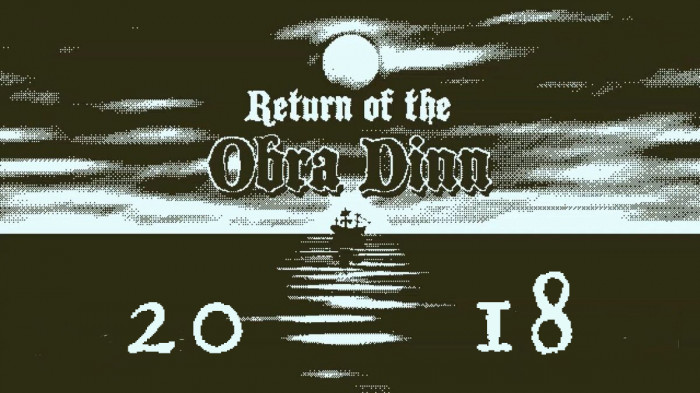
I like the spreading of ink on old printed books, in contrast to the digital sterility of fonts and texts around us today. I wanted to add a little soul, although using a grid and digital pixels to simulate ink. Completely handmade, no real prototype.
Maybe if I were a programmer, I would come up with a special random hint or a variable font in which the outline of each letter would always be unique and imitate the printing of an old book.
@Dmitriy Sychiov (Sychoff) - I really like the old, worn style as well -- gives everything a sense of 'history.' Very nice work here. :^)
some games use pixel aesthetics, so the font will be good for them too.
Beautiful rendering of the old printing.
Love this. Superb.
This works really well!